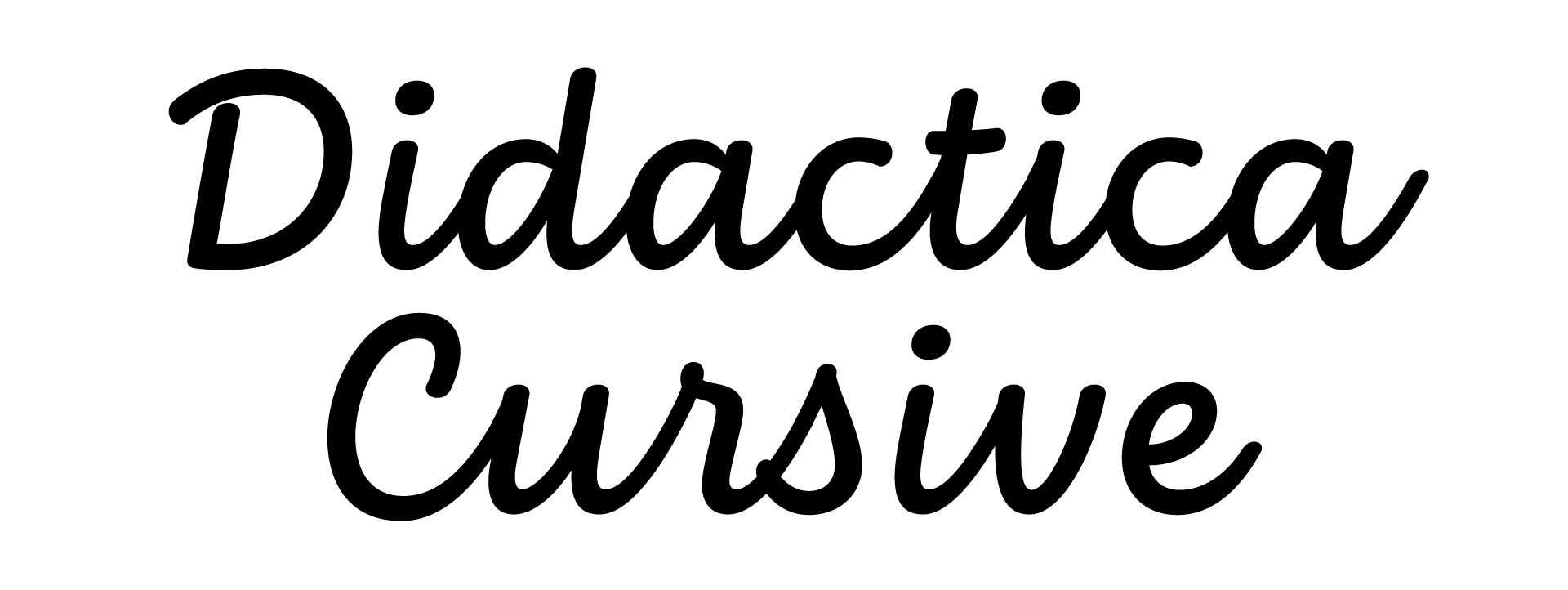
Didactica Cursive Font Family
Didactica Cursive is the second stage of the Didactica super-family — a partially joined italic script mirroring Tom Gourdie’s philosophy of two closely related alphabets: one for print, one for cursive. Following the principles of modern italics, some lowercase letters join naturally while others remain disconnected. Both stages share proportions, structure, and rhythm, allowing the typeface to grow with the learner’s skill.
Like its companion Didactica, it offers customizable weights, slants, and features including Guidelines as well as Ductus, with directional arrows and stylistic sets that adjust arrow directions for left-handed learners. The upright angle of the letterforms also supports left-handed children, making the family more accessible across the classroom. Designed for publishers of early-learning materials, teachers, parents, and designers working in children’s media, Didactica Cursive serves everyone working across the literacy landscape.